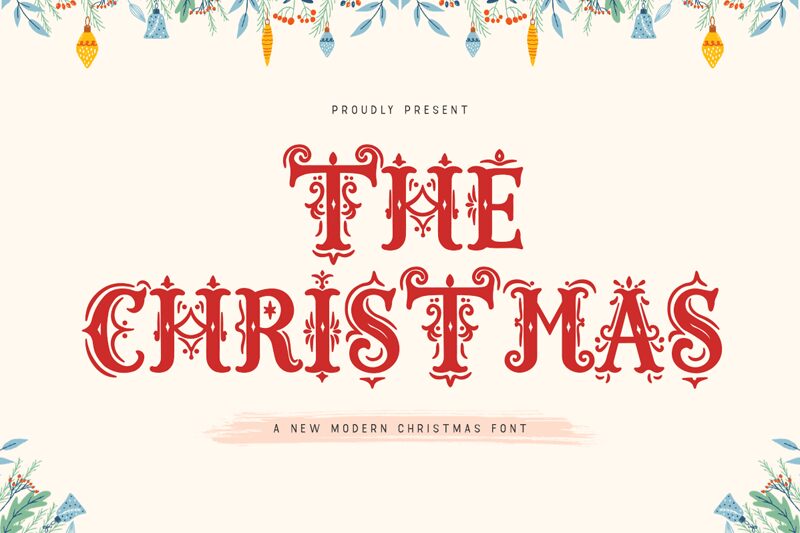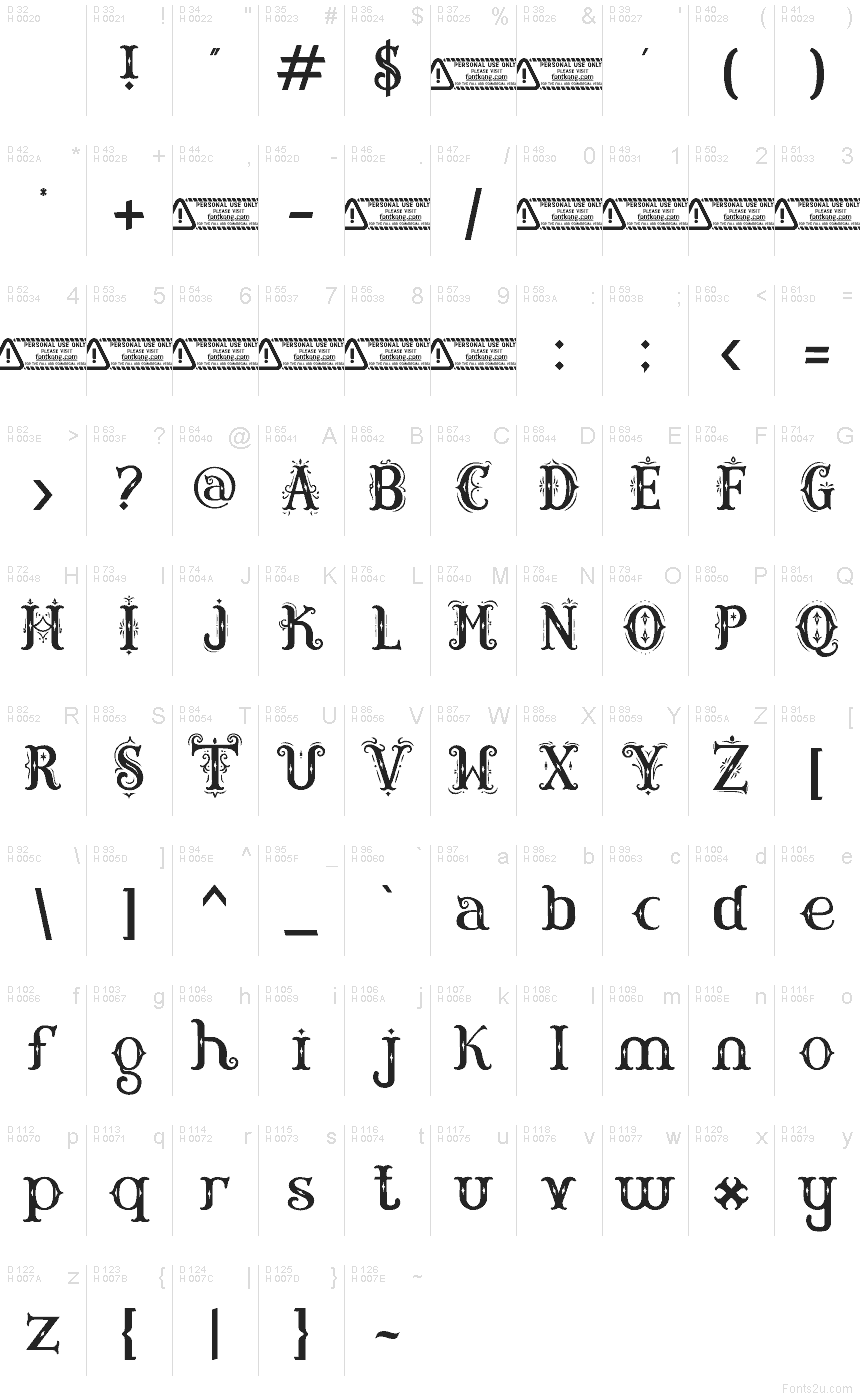
The Christmas font by Kong Font is a free Christmas decorative typeface that wraps every word in ornate, storybook charm. Tall, slender letters sprout curling vines and tiny leaf-like flourishes, as if they’ve been etched into frosted glass or carved into an old wooden sign. The overall feel is nostalgic and cozy, but with enough crisp structure that your titles stay readable even when the swirls get festive.
Using The Christmas font, you can instantly dress up holiday greeting cards, party invitations, gift tags, seasonal packaging, storefront signage, and social media graphics. This free font shines when used large as a headline, with a simple sans serif for supporting text to keep things clear. It’s a natural fit for any project that needs a touch of Victorian holiday magic without feeling heavy or dated.